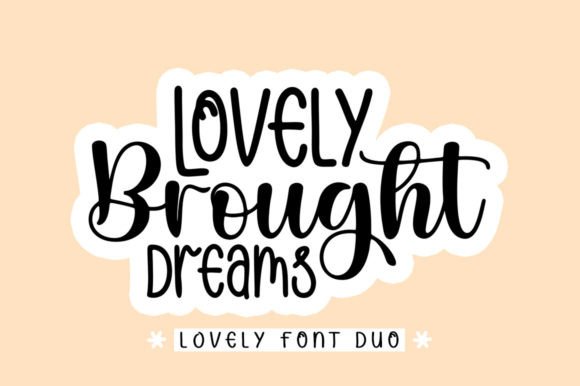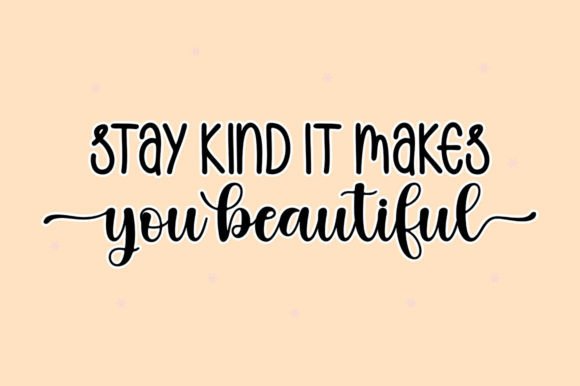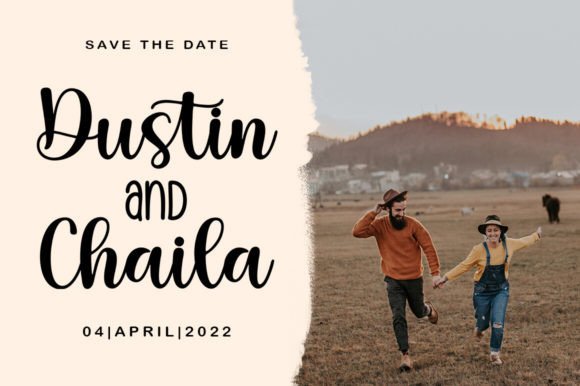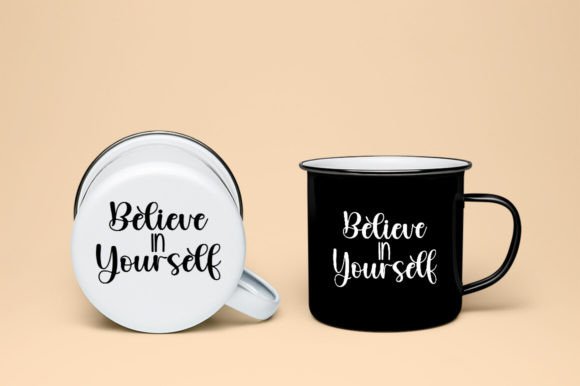
Lovely Brought Dreams Font
About the Lovely Brought Dreams Font
Discover the charm of Lovely Brought Dreams Font. This font is a perfect blend of modern aesthetics and classic appeal. Lovely Brought Dreams Script and Sans are beautiful and romantic writing fonts. Looks amazing on wedding invitations, thank you cards, quotes, greeting cards, logos, business cards and other designs.
Its elegant and romantic style makes it ideal for wedding stationery, branding for luxury goods or beauty products, and projects requiring a touch of classic sophistication. Use it effectively for short headlines, logos, and short-form text on packaging or social media graphics. However, avoid using it for lengthy body text or UI elements where readability is paramount; its script nature isn’t suited to extended paragraphs.
Lovely Brought Dreams pairs beautifully with clean sans-serif fonts like Lato or Montserrat for a balanced contrast, or with a more delicate serif like Playfair Display for a cohesive, traditional feel. For a modern twist, consider pairing it with a geometric sans-serif such as Futura. The key is to maintain a clear visual hierarchy, letting the script font shine in prominent areas while the supporting font provides clear readability for smaller text.
The overall personality is refined and romantic, conveying a sense of timeless elegance and gentle charm. It’s best suited for brands and projects that aim for a sophisticated and slightly nostalgic aesthetic.
Lovely Brought Dreams Font Usage Examples
Lovely Brought Dreams Font Example